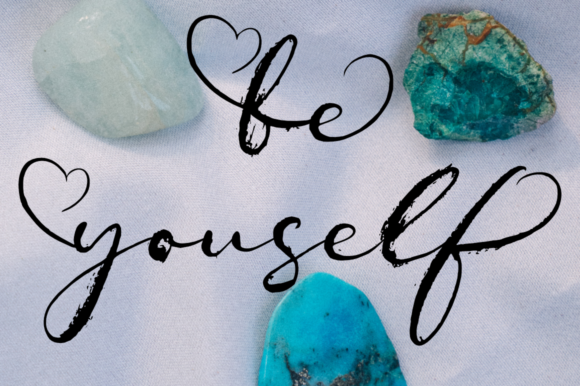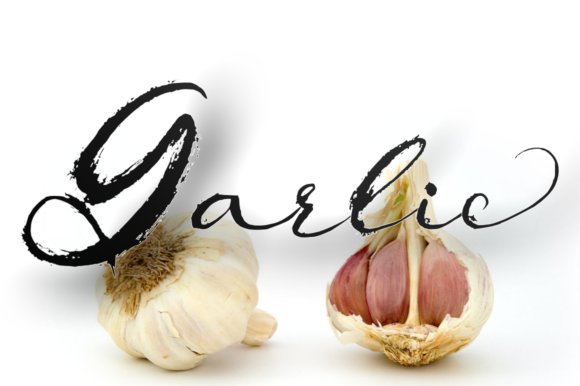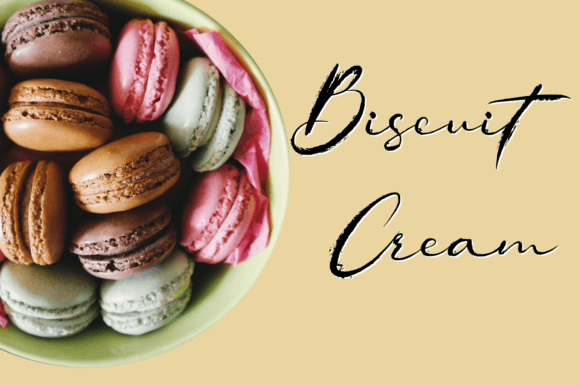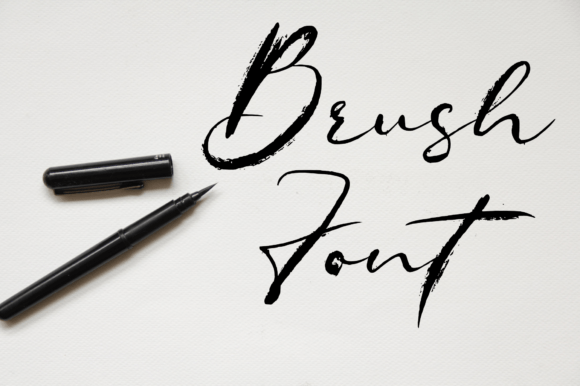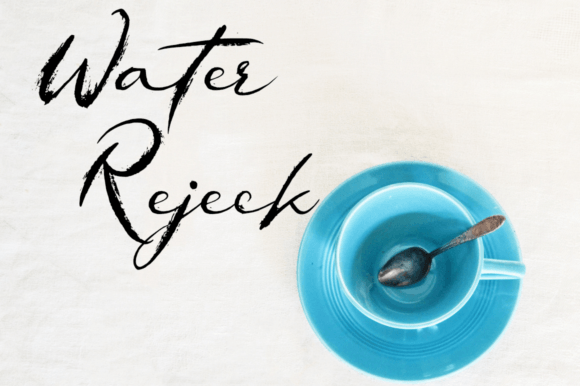
Introduction to Bargot Font
Have you ever sat down with a blank page, a blank screen, or a blank canvas, and felt the pressure to create something truly special? That’s exactly where the magic happens – in those moments of pure creative freedom. As designers, we crave resources that can bring our imagination to life, and that’s exactly where the Bargot Font comes in.
With its delicate, free-flowing handwritten style, the Bargot Font is a versatile design resource that can elevate any creative project. Whether you’re working on a blog post, a logo, or an invitation, this high-quality font is sure to add a touch of elegance and sophistication. And the best part? It’s available for free download, allowing you to experiment with it on any project without breaking the bank.
Key Features of Bargot Font
- High-quality, elegant script font perfect for creative projects, ideal for use as a design resource.
- Features a transparent background, making it easy to use on various backgrounds without any visual distractions.
- Comes in a single font size, but with multiple styles and weights, allowing for a wide range of design possibilities.
- Designed at a high resolution (300 DPI), ensuring crisp and clear text display on various devices and screens.
- Unique characteristics include its elegant and cursive design, making it perfect for invitations, greeting cards, and other creative applications.
- Perfect for use in digital and print media, including social media graphics, logos, and marketing materials.
Honest Review: Bargot Font
I recently stumbled upon the Bargot Font, and I’m excited to share my honest thoughts on this design resource.
- ✨ High-quality typography: The font features clean lines, elegant curves, and a sophisticated feel that makes it perfect for creative projects.
- ✨ Versatility: Bargot Font is suitable for a wide range of applications, from body text to headings, making it an excellent choice for designers.
- ⚠️ Limited language support: The font only includes a basic Latin character set, which may be a concern for designers working on projects that require additional languages.
- ⚠️ No transparent background: The font doesn’t include a transparent background option, which can limit its use in certain design applications.
Overall, I’m impressed with the Bargot Font’s high-quality typography and versatility. While it has some limitations, it’s still a valuable addition to any designer’s toolkit, especially considering its free download option.
Introduction to Bargot Font
Bargot Font is a high-quality design resource perfect for any creative project. This free download offers a unique and stylish aesthetic that can elevate your work.
Tips for Getting the Most Out of Bargot Font
To get the most out of Bargot Font, consider the following tips:
- Use a transparent background to create a clean and modern look.
- Experiment with different font sizes and styles to achieve the desired effect.
- Combine Bargot Font with other design elements to create a visually appealing design.
Common Use Cases for Bargot Font
Bargot Font is suitable for various design projects, including:
- Branding